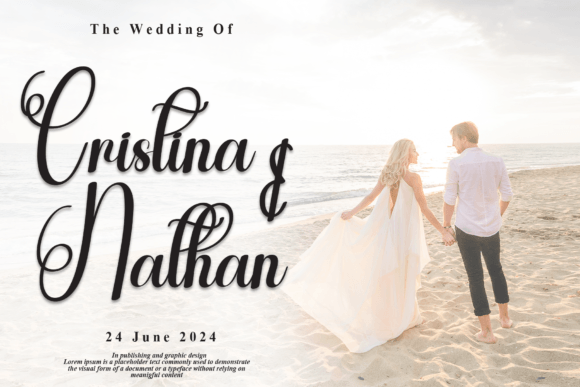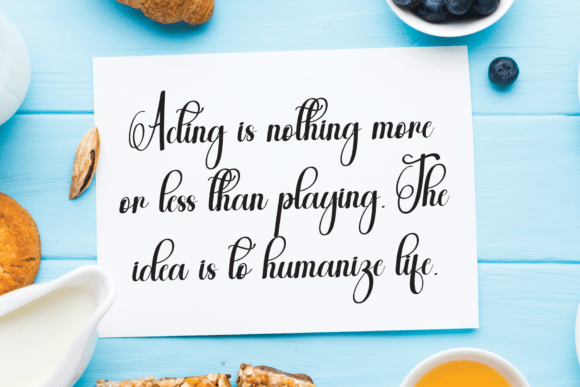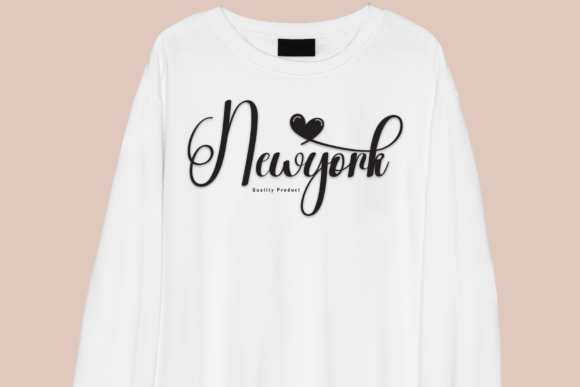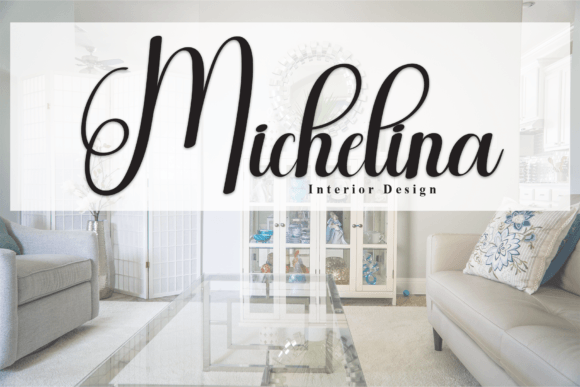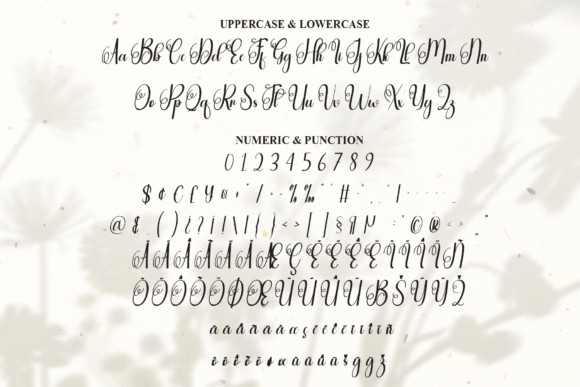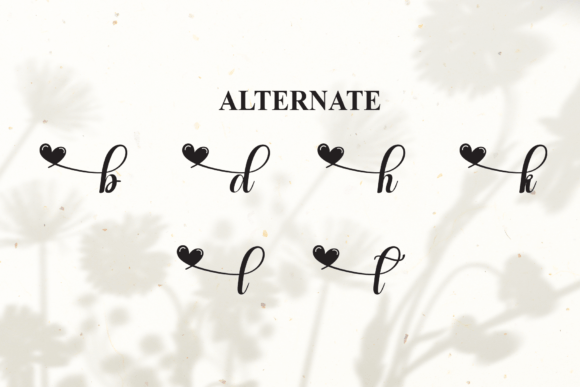
Meet Amanda Font: The Whimsical Display Font You Need
As designers, we’ve all been there – staring at a blank page, trying to conjure up the perfect font to bring our creative vision to life. And then, it happens – a spark of inspiration strikes, and we’re off on a journey of discovery, searching for the perfect typography to match our unique style.
Enter Amanda Font, a charmingly handwritten display font that embodies the perfect blend of whimsy and warmth. With its adorable and entertaining style, Amanda Font is the ideal choice for crafting breathtaking wedding invitations, charming cards, or any creative design project that requires a touch of fun and sweetness.
Whether you’re a seasoned designer or just starting out, Amanda Font offers a valuable asset to your typography toolkit – a font that’s sure to add a dash of personality and charm to any project. So why settle for ordinary when you can have a font that’s truly extraordinary?
Amanda Font Key Features
- Size: Amanda Font has 6 styles, including Thin, Light, Regular, Medium, Bold, and Black.
- Unique Characteristics: Amanda Font features a modern, elegant design with a subtle flair at the terminals, giving it a distinctive look.
- Language Support: Amanda Font supports a wide range of languages, including Latin, Greek, and Cyrillic scripts.
- Kerning and Ligatures: Amanda Font includes advanced kerning and ligature features, ensuring smooth text rendering and a professional look.
Amanda Font Review
I recently had the chance to work with Amanda Font, and I must say, it’s a unique and quirky addition to any design project. Here’s my honest review:
- ✨ Elegant Script: Amanda Font has a beautiful, flowing script that’s perfect for adding a touch of sophistication to your designs.
- ✨ Versatile: This font can be used for a variety of projects, from wedding invitations to branding materials.
- ✨ Good Legibility: Despite its elegant script, Amanda Font is still easy to read, making it a great choice for body text.
- ⚠️ Limited Character Set: Amanda Font has a relatively small character set, which may limit its use for certain projects.
- ⚠️ Not Ideal for Small Text: Due to its flowing script, Amanda Font may not be the best choice for small text or headings.
Overall, I think Amanda Font is a great addition to any design project that needs a touch of elegance. While it may have some limitations, its unique script and versatility make it a great choice for designers looking to add some personality to their work.
For the most out of Amanda Font, use it for:
- Headings and titles.
- Body text for marketing materials, such as brochures and flyers.
- Editorial content, such as blog posts and articles.
Remember to adjust font sizes and line spacing for optimal readability.
Alternatives to Amanda Font for Designers
Montserrat is a modern sans-serif font designed by Julieta Ulanovsky. It is a popular choice for designers due to its clean and minimalist aesthetic. Montserrat is ideal for use in digital interfaces, advertisements, and editorial content where a clear and readable font is necessary. Compared to Amanda Font, Montserrat is more geometric and has a stronger emphasis on legibility.
Open Sans is a sans-serif font designed by Steve Matteson. It is a highly versatile font that is suitable for a wide range of applications, including digital interfaces, publications, and signage. Open Sans is known for its friendly and approachable feel, making it an excellent choice for projects where a neutral tone is desired. Compared to Amanda Font, Open Sans is more rounded and has a softer appearance.
Inter is a sans-serif font designed by Rasmus Andersson. It is a highly legible font that is designed to be used in a wide range of applications, including digital interfaces, publications, and signage. Inter is known for its clean and minimalist aesthetic, making it an excellent choice for projects where a modern and professional tone is desired. Compared to Amanda Font, Inter is more geometric and has a stronger emphasis on legibility.